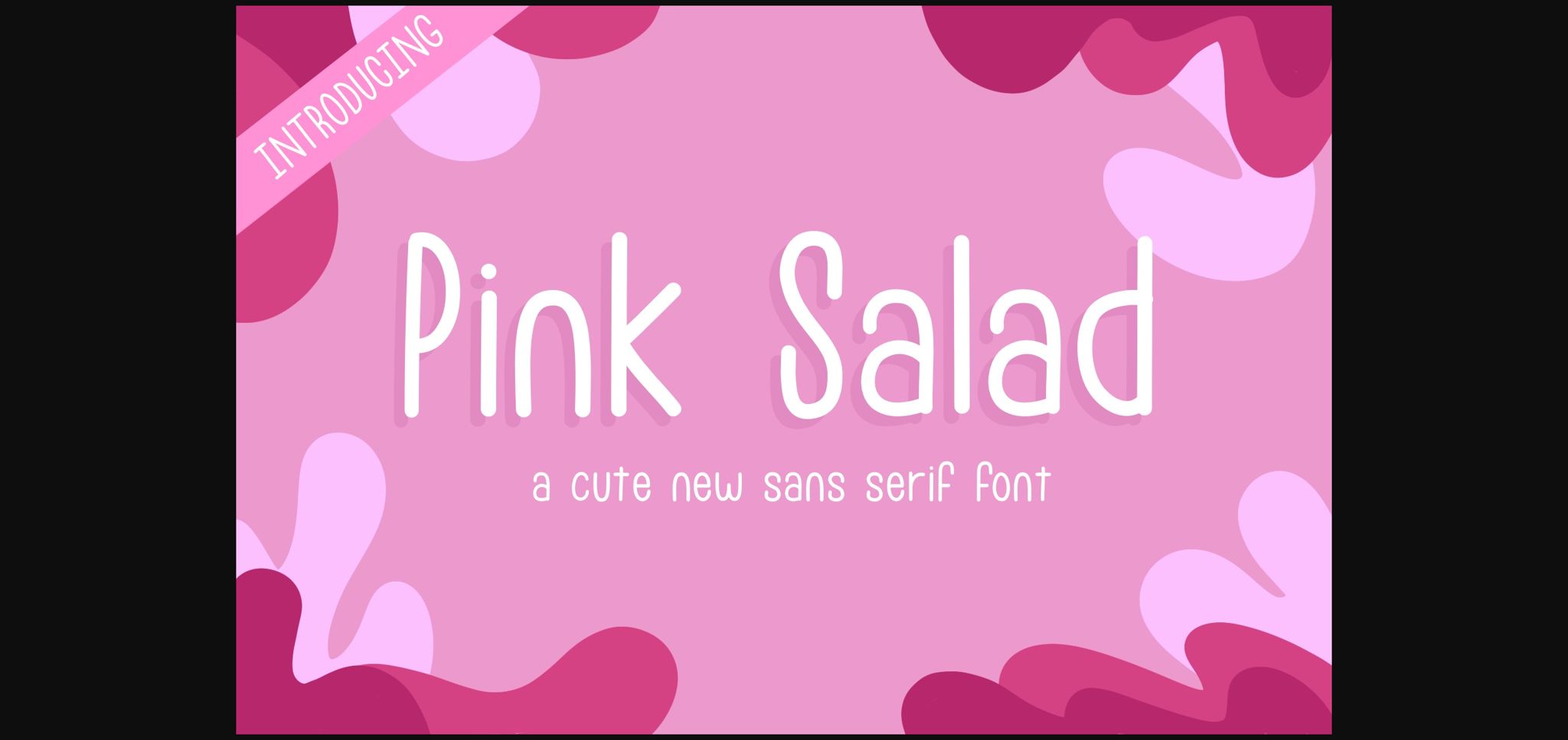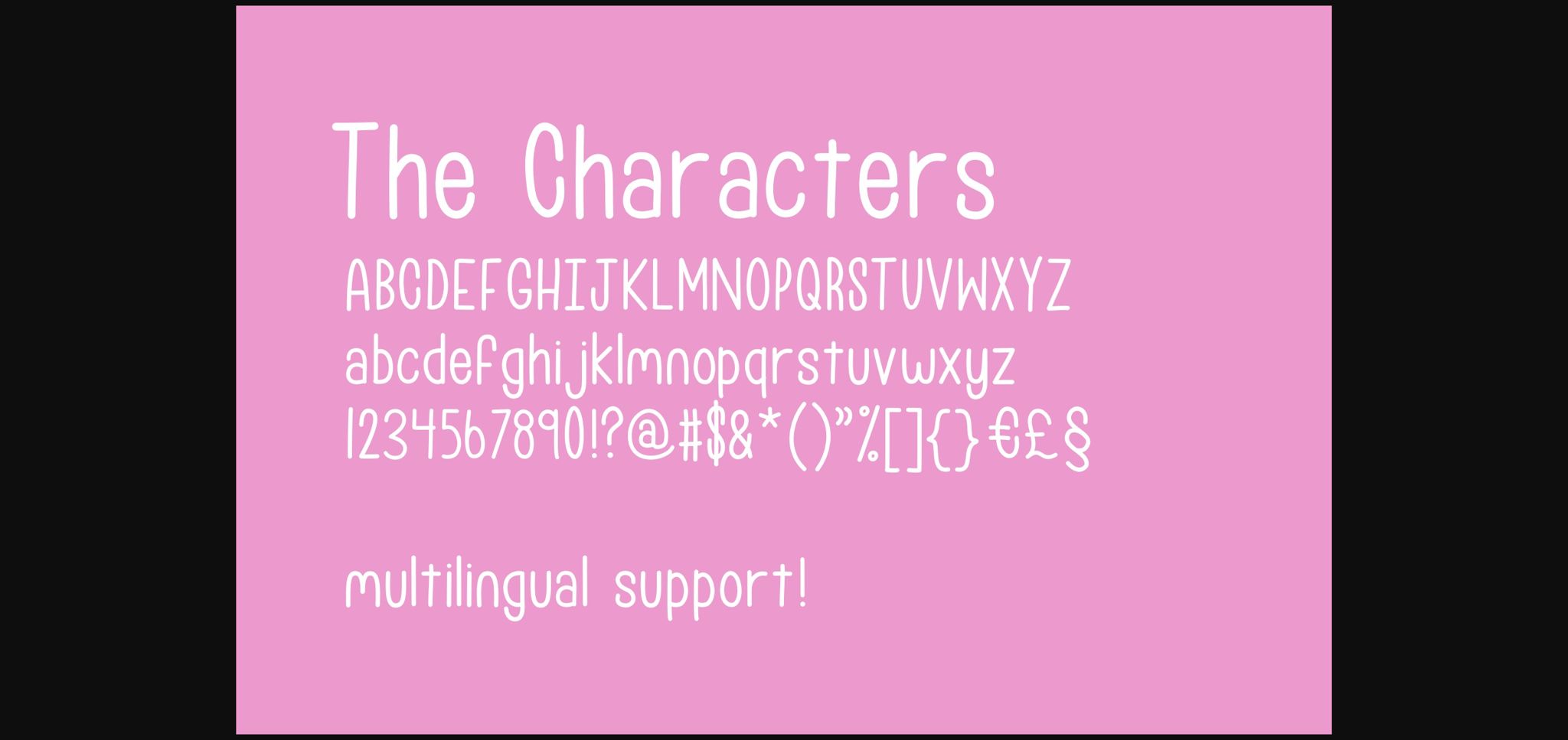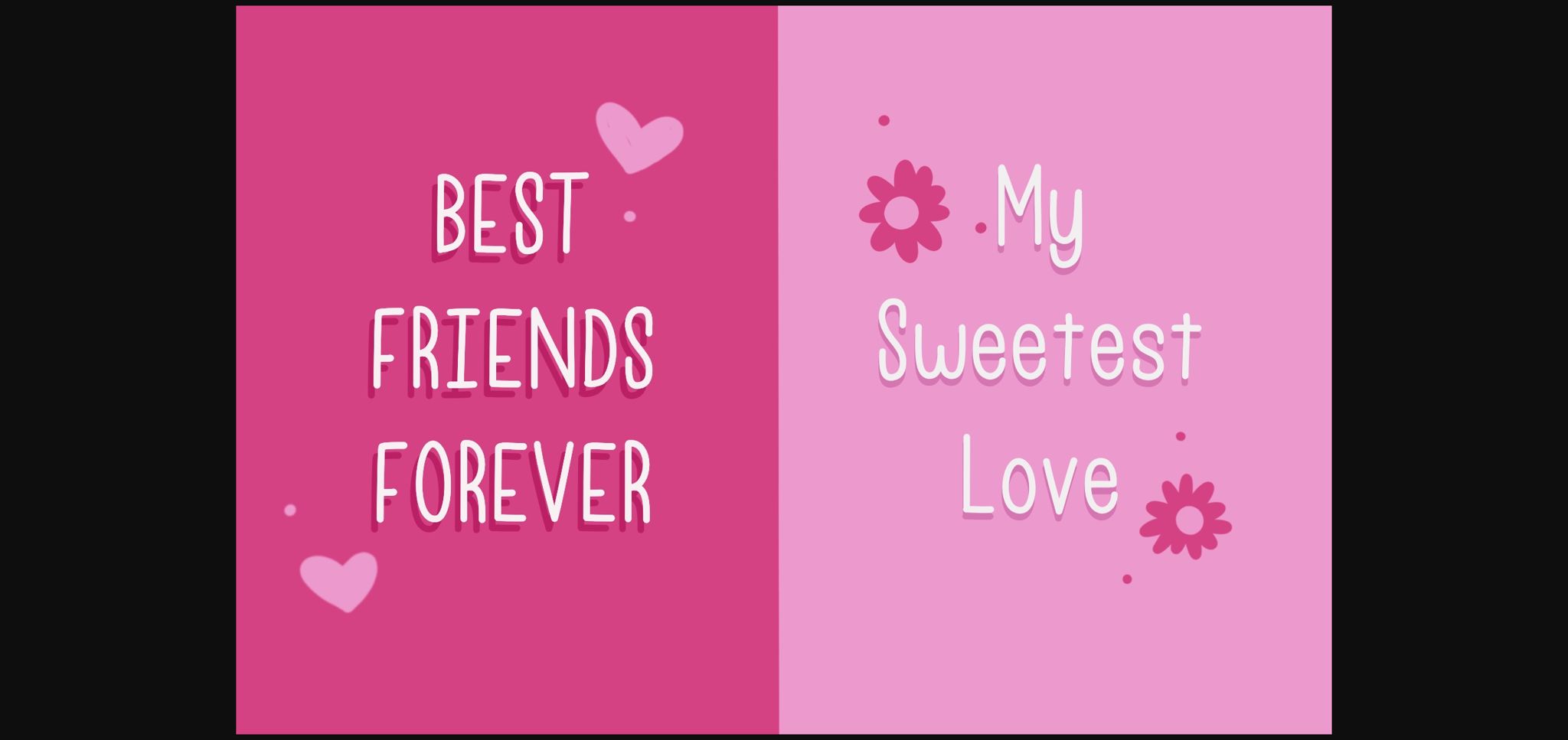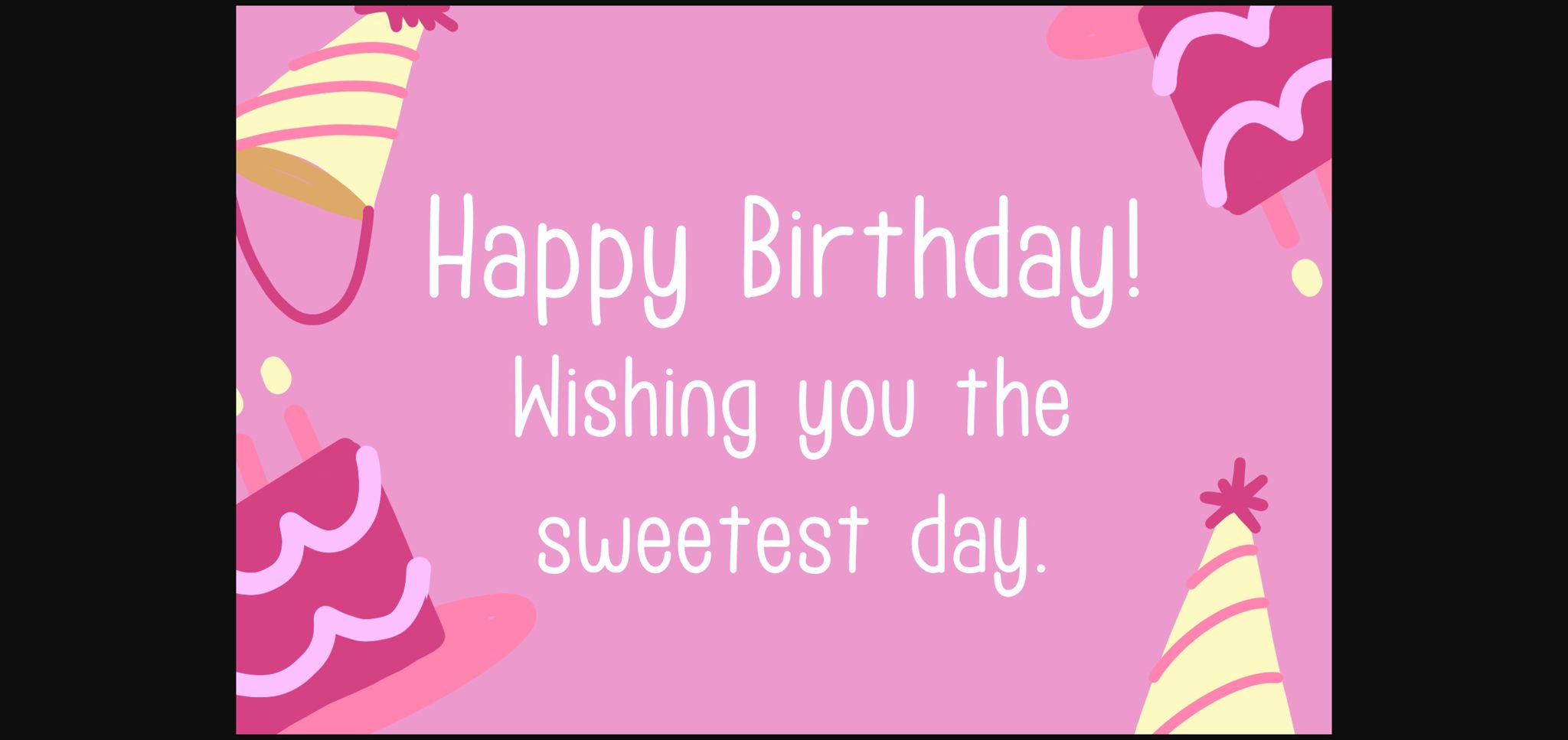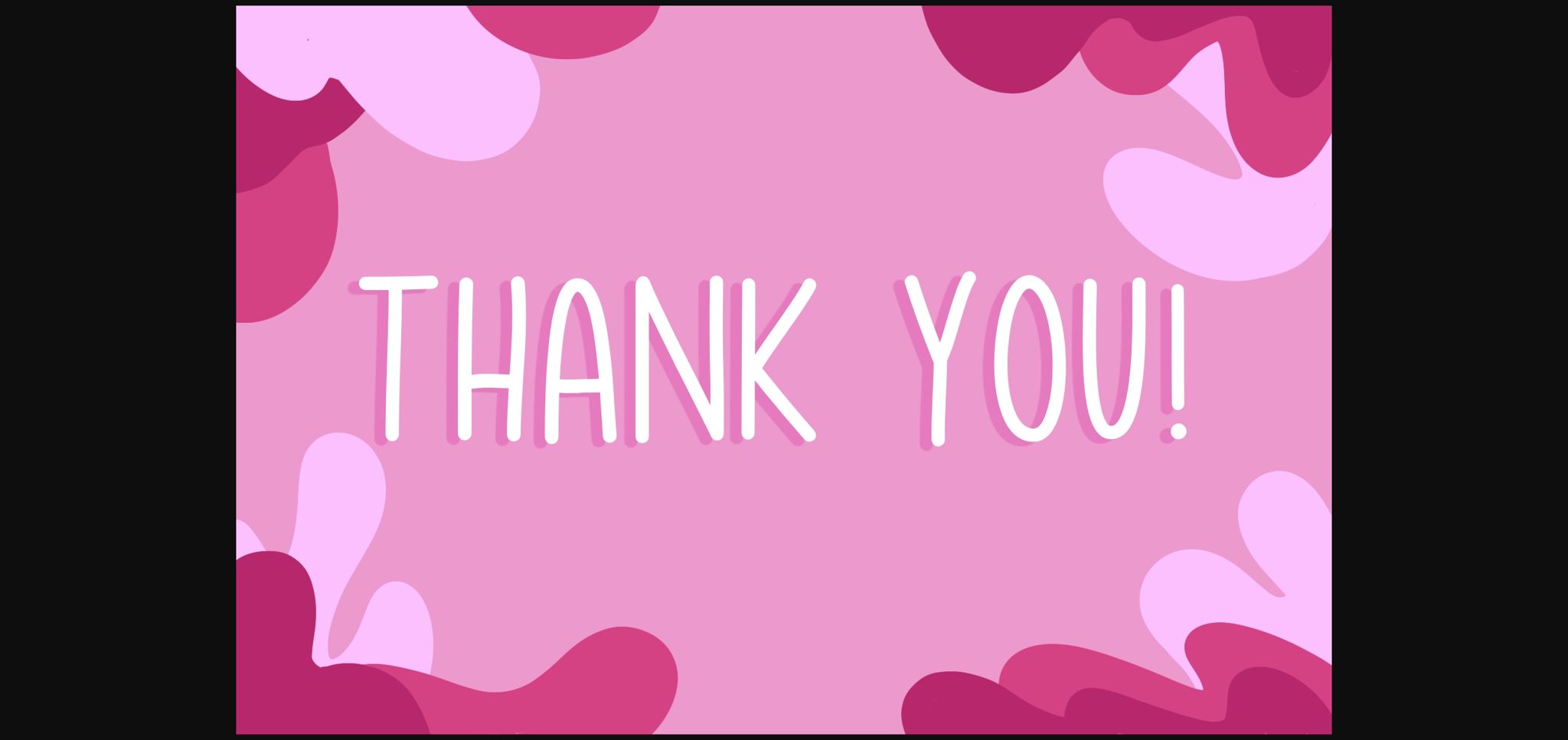
HomeSans Serif FontsPink Salad Font Sans Serif Fonts Pink Salad Font FacebookXPinterestWhatsApp 1 of 7 ... Pink Salad Font Poster 2... Pink Salad Font Poster 3... Pink Salad Font Poster 4... Pink Salad Font Poster 5... Pink Salad Font Poster 6... Pink Salad Font Poster 7... About Pink Salad Font Pink Salad is a cute sans serif font. It has a clean, thin and smooth vibe and it will be a hit for any design that you want to add it to. DOWNLOAD NOW People also explored Snowman Font Hurringtown Script Font Kapture Awesome Duo Script Font Dilemma Script Font Handmade Font Cactus Flowers Font Quotes Font Solid Craft Font 397 0 TagsPink Salad Font Previous articleFisherman FontNext articleEivor Font LEAVE A REPLY Cancel reply Comment: Please enter your comment! Name:* Please enter your name here Email:* You have entered an incorrect email address! Please enter your email address here Website: Save my name, email, and website in this browser for the next time I comment. Personal Use Free Browie Personal Use Free Read more about this font Drip October Font Personal Use Free Read more about this font Hanifah Personal Use Free Read more about this font Bamboomoe Personal Use Free Read more about this font BLOG How to Cut Any Font on Cricut: Convert a Font to SVG (Free) Turn any font into a clean SVG so it cuts crisp on Cricut - a quick 3-step workflow using a free font-to-SVG tool. 5 Fonts That Will Dominate Design Trends in 2026 Using Fonts in Digital Marketing: Tips to Strengthen Your Brand Identity Elegant Wedding Invitation Fonts – Handwritten & Script Fonts